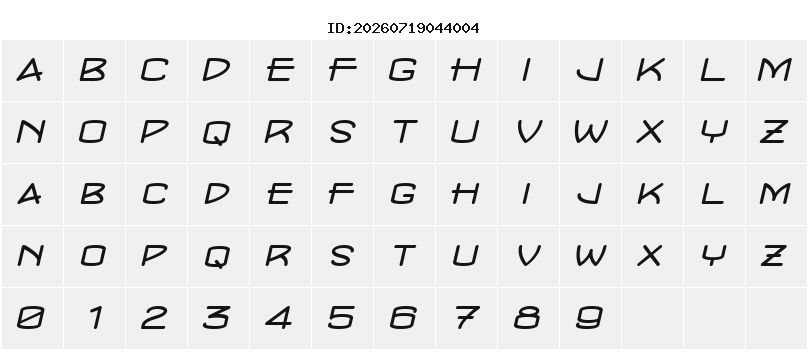
ConcursoModerne BTN Wide Preview
• Font Name: ConcursoModerne BTN Wide
• Font Style: Oblique
• Font ID: ConcursoModerne BTN Wide Oblique
• Full Font Name: ConcursoModerne BTN Wide Oblique
• PostScript Name: ConcursoModerneBTNWideOblique
About ConcursoModerne BTN Wide.ttf
ConcursoModerne BTN Wide.ttf is a modern, elegant sans-serif font designed for ultimate readability and visual harmony. Perfect for branding, headlines, web design, and print materials.